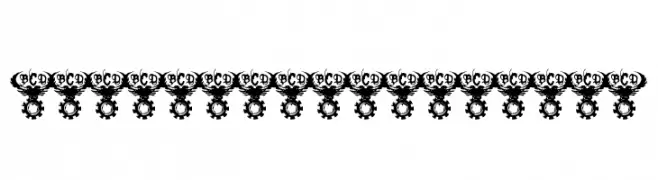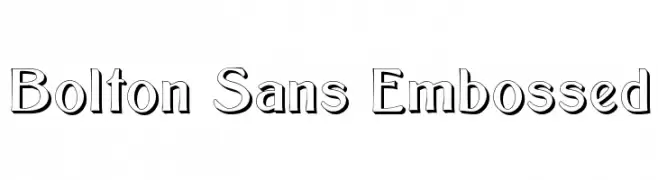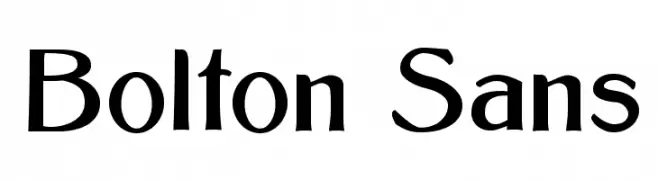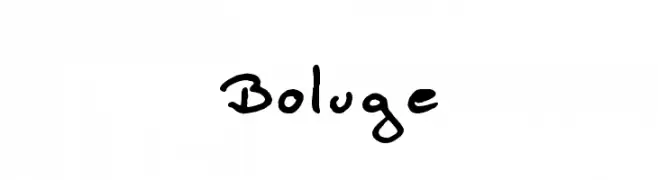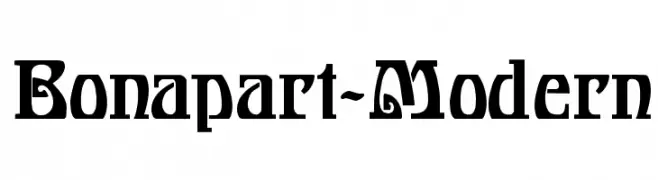
A modern calligraphic font with sharp, angular strokes and elegant flourishes.
A classic, calligraphic serif font with high contrast and elegant serifs.
A vintage serif font with bold, sharp serifs and elegant curves.
A bold, classic serif font with strong strokes and elegant serifs.
A classic serif font with a traditional and elegant design.
A classic serif font with elegant and refined characters.
A classic serif font with elegant, well-defined characters and moderate contrast.
A bold, classic serif font with strong, authoritative characters.
A playful and artistic font with elongated, curved lines and a modern look.
A playful, hand-drawn font with bold, irregular strokes and a casual feel.
A decorative font with spiral and circular motifs, evoking an ancient and mystical feel.
A bold, pixelated font with a retro, digital style.
A bold, geometric font with an industrial and modern style.
A decorative, pictorial font inspired by ancient Egyptian hieroglyphs.
A playful, casual handwritten font with smooth, flowing lines.
A classic calligraphic font with elegant, flowing strokes and traditional style.
A bold, geometric font with rounded strokes and a modern aesthetic.
A modern, geometric font with uniform strokes, ideal for signage and registration plates.
A playful and informal handwritten font with dynamic letterforms.
A bold, geometric font with Art Deco influences and high contrast.
A bold, geometric font with sharp angles and a modern aesthetic.
A bold, geometric font with sharp angles and a striking appearance.
A bold, geometric font with a modern, futuristic style.
A bold, geometric font with a futuristic and digital aesthetic.
A modern, geometric sans-serif font with clean lines and balanced proportions.